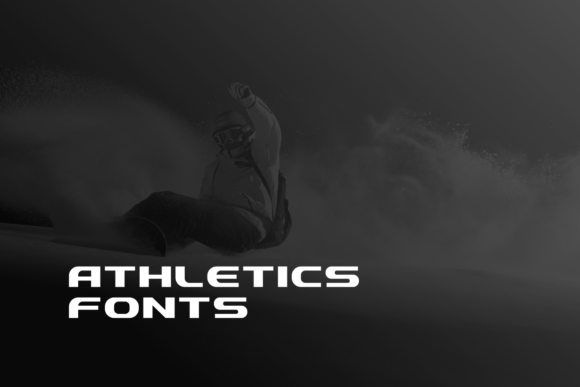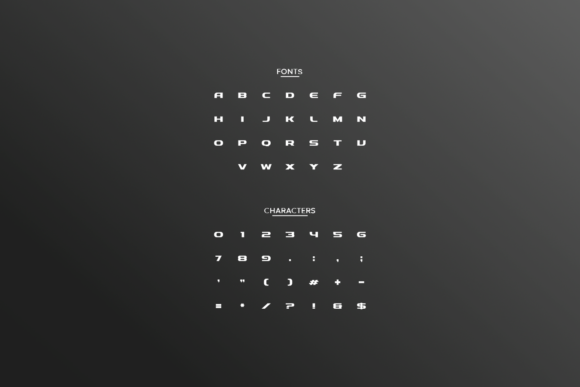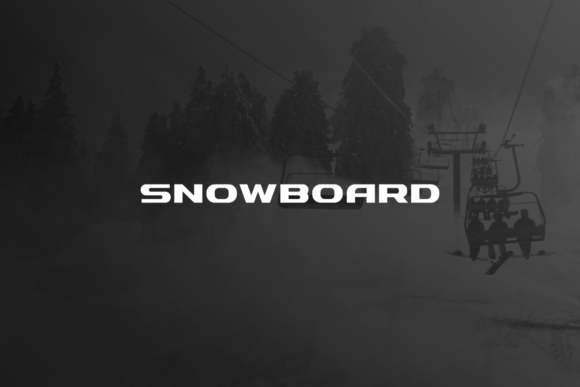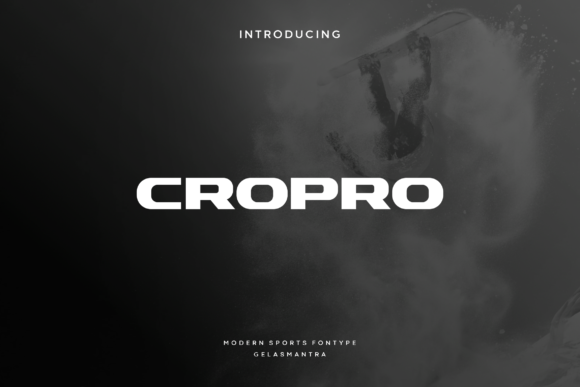
Cropro Font: Elevate Your Designs with a Modern Sports Theme
In the world of typography, fonts play a crucial role in conveying the tone and personality of a design. For designers and crafters looking for a font that embodies a sports theme while maintaining professionalism, Cropro Font is an excellent choice. This simple yet modern display font has been gaining popularity for its unique charm and versatility.
What is Cropro Font?
Cropro Font is a contemporary display font designed with a sports theme in mind. Its firm shape and clean lines give it a sporty appearance that is both modern and professional. The font’s design is carefully crafted to convey a sense of dynamism and energy, making it perfect for projects that require a bold and adventurous feel.
Key Features of Cropro Font
• Sports Theme: Cropro Font is specifically designed with a sports theme, making it ideal for projects related to sports, fitness, and outdoor activities.
• Firm Shape: The font’s firm shape gives it a sturdy and robust appearance, perfect for headlines and titles that require a strong presence.
• Modern and Professional: Despite its sporty look, Cropro Font maintains a level of professionalism, making it suitable for a wide range of design projects.
• Versatile: The font’s unique charm allows it to blend formal and playful looks seamlessly, offering endless possibilities for creative expression.
Why Choose Cropro Font?
For designers and crafters, finding the right font can be a daunting task. However, Cropro Font stands out from the crowd for several reasons:
• Ease of Use: Cropro Font is incredibly easy to use, even for those who are new to design. Its clean lines and simple shape make it effortless to read and understand.
• Customization: The font’s versatility allows for endless customization possibilities. Whether you’re looking to create a bold statement or a subtle hint of playfulness, Cropro Font adapts effortlessly.
• Professionalism: Despite its sporty theme, Cropro Font exudes professionalism, making it suitable for corporate projects, branding, and marketing materials.
Endless Possibilities with Cropro Font
So, what can you create with Cropro Font? The possibilities are endless:
• Sports Branding: Use Cropro Font to create bold and dynamic logos, jerseys, and marketing materials for sports teams and events.
• Fitness and Wellness: Perfect for fitness and wellness projects, such as gym branding, workout posters, and health-related marketing materials.
• Outdoor and Adventure: Ideal for outdoor and adventure-related projects, including travel brochures, outdoor gear branding, and environmental campaigns.
• Digital Media: Use Cropro Font in digital media, such as social media graphics, video game titles, and website headers.
Cropro Font is a modern and versatile display font that brings a fresh perspective to the world of typography. Its unique blend of sportiness and professionalism makes it an excellent choice for designers and crafters looking for a font that can elevate their designs. With its ease of use, customization possibilities, and endless applications, Cropro Font is sure to become a staple in your design toolkit.